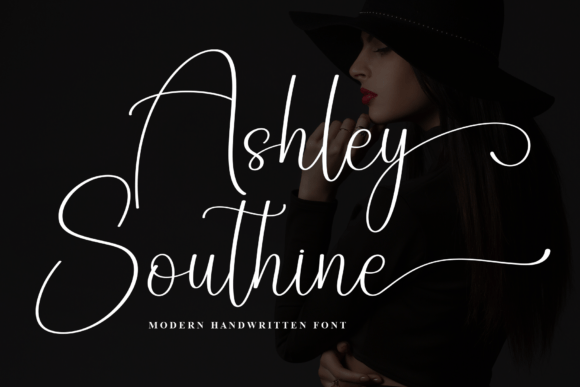
The Sweet Charm of Ashley Southine Font: A Designer’s Delight
I’ll never forget the time I was working on a project for a client’s wedding invitation suite. I had the design concept nailed down, but I was struggling to find the perfect font to bring it all together. The client wanted something sweet, friendly, and elegant, but not too formal. I scoured the internet, tried out countless fonts, but nothing seemed quite right. That was until I stumbled upon Ashley Southine Font. It was like a breath of fresh air – the perfect blend of whimsy and sophistication.
Ashley Southine Font has quickly become one of my go-to fonts for a variety of design projects. Here’s what I love about it:
• ✨ Sweet and friendly vibe: Ashley Southine has a warm, approachable feel that’s perfect for projects that require a personal touch.
• ✅ Natural and unique style: The font’s handwritten style gives it a distinctive look that’s sure to stand out.
• 🌈 Versatility: Whether you’re designing a wedding invitation, a craft tutorial, or a social media graphic, Ashley Southine Font adapts seamlessly.
Of course, no font is perfect, and Ashley Southine has a few quirks:
• 🤔 Limited formal use: While Ashley Southine is amazing for informal projects, it may not be the best choice for more formal or corporate designs.
• ⚠️ Glyph limitations: Some users have reported that the font could benefit from more glyphs and special characters.
The Story Behind Ashley Southine Font
Ashley Southine Font was designed with the intention of creating a friendly, approachable font that would bring a touch of warmth to any design project. The designer aimed to craft a font that would be versatile enough to use in a variety of contexts, from weddings to craft tutorials.
What makes Ashley Southine Font unique? Ashley Southine Font has a distinctive handwritten style that’s both sweet and friendly.
Is Ashley Southine Font suitable for body text? While Ashley Southine Font is beautiful, it’s best used for headings or short paragraphs due to its decorative nature.